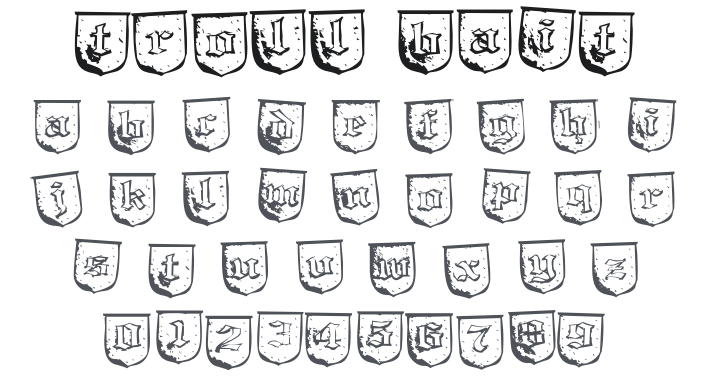
Troll Bait Font
About Troll Bait
Troll Bait is a quirky medieval-inspired display typeface with chunky, whimsical letterforms that blend old-English gothic structure with a playful, cartoonish looseness — bold strokes and irregular shapes that feel hand-lettered by an enthusiastic but unruly monk. Its fantasy RPG personality is hard to miss. Perfect for tabletop gaming materials, fantasy game titles, medieval-themed events, dungeon-crawler branding, and any design needing that irresistible old-world adventure charm.